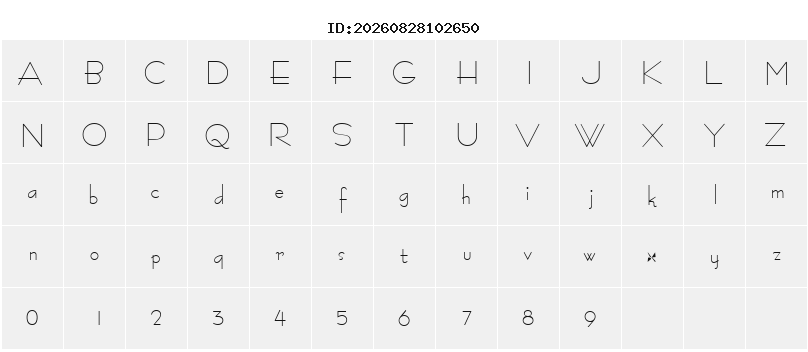
TourinaSSi Preview
• Font Name: TourinaSSi
• Full Font Name: TourinaSSi
About TourinaSSi.ttf
TourinaSSi.ttf is a modern, elegant sans-serif font designed for ultimate readability and visual harmony. Perfect for branding, headlines, web design, and print materials.